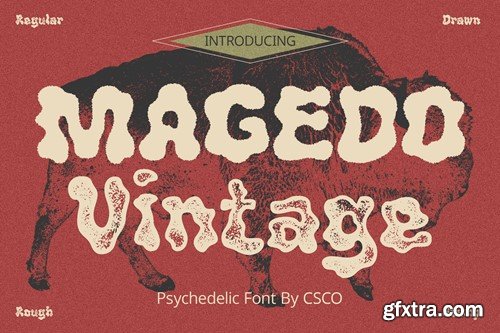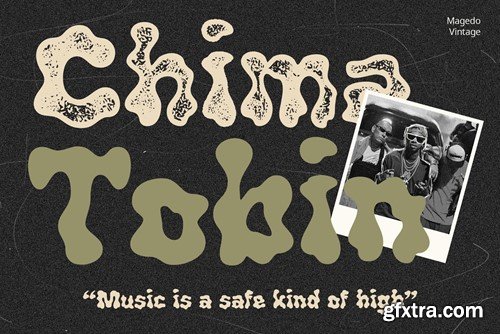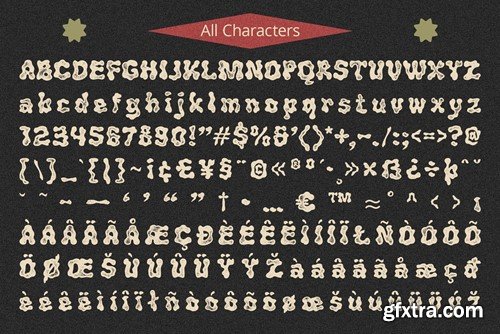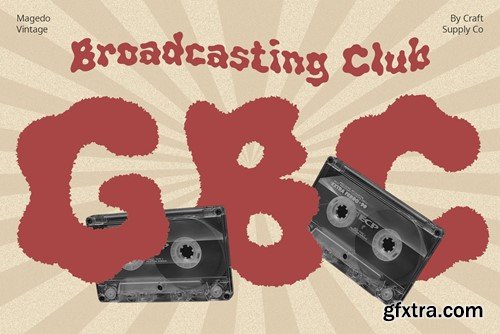
Magedo Vintage – 流动字体 PR8E35U
Introducing Magedo Vintage – Fluid Font Looking for a font that’s both fluid and exudes vintage charm? Look no further than Magedo Vintage – Fluid Font. This versatile typeface offers a blend of modern fluidity and classic vintage aesthetics display that will elevate your designs to the next level. Fluid Elegance Magedo Vintage boasts a fluidity that adds a touch of sophistication to your projects. Its smooth curves and flowing lines make it perfect for logos, headings, and invitations, creating a sense of dynamic movement that captures attention. Rustic Hand-Drawn Appeal Embrace the hand-drawn trend with Magedo Vintage. Its rustic, imperfect strokes give your text a unique character and a cozy, artisanal feel. Whether you’re designing a rustic wedding invitation or a quaint cafe menu, this font adds that charming touch. In conclusion, Magedo Vintage – Fluid Font is your go-to choice for achieving a fluid yet vintage look in your designs. Its blend of elegance, rustic charm, and timeless appeal make it a must-have for designers looking to make a statement. Try it today and add a touch of vintage magic to your projects! What you get : Magedo Regular Magedo Drawn Magedo Rough Magedo Stamp Features : Uppercase and lowercase characters Numerals and Punctuation (OpenType Standard) Accents (Supports Multilingual Characters) PUA Encoded No specialized software is needed to utilize this typeface. For any inquiries or assistance, please don’t hesitate to get in touch. We appreciate your support in making your creative projects shine! Best regards, Craft Supply Co.